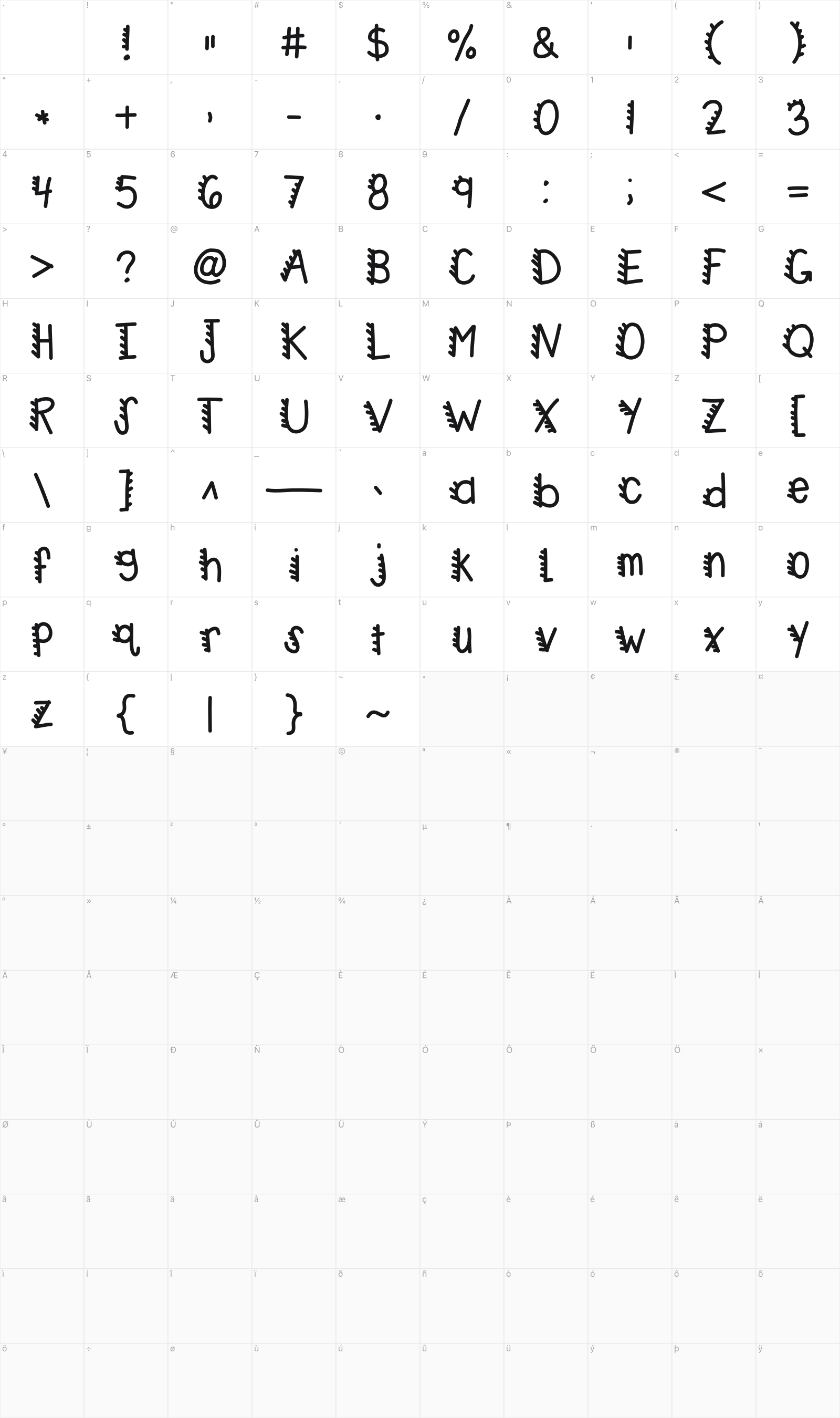
KB Racecars
KB Racecars is a handwritten font by Khrys Bosland with the bouncy, uneven quality of a kid's handwriting, all wobbly baselines and inconsistent sizing that feel genuinely spontaneous. The letterforms are playful and whimsical without being unreadable, making it a good fit for children's projects, greeting cards, scrapbooking, and casual designs where a little personality goes a long way.